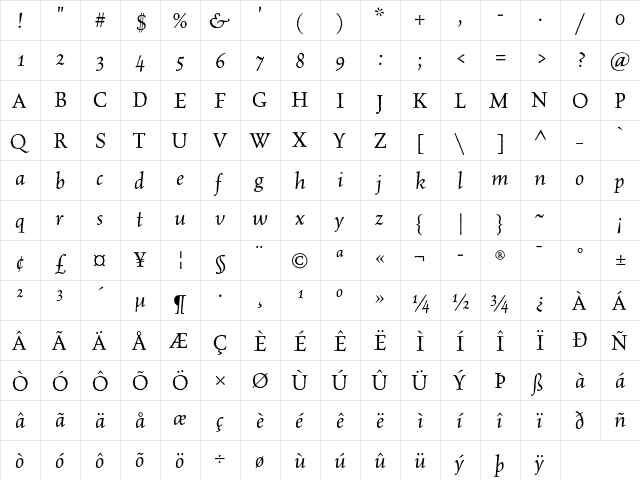
Celestia Antiqua Std Italic Font Preview
Celestia Antiqua Std Italic
Celestia Antiqua Std Italic Font Details
| Designer | Mark van Bronkhorst |
Design Context for Celestia Antiqua Std Typeface
Celestia Antiqua Std is a composed and adaptable typeface that performs quietly and consistently across a wide range of design contexts. The dynamic lean of this cut emphasises speed and emphasis in any layout.
Pro Tip: Try Celestia Antiqua Std for annotation and caption copy alongside an upright companion — the contrast in angle creates a dynamic but ordered typographic system.